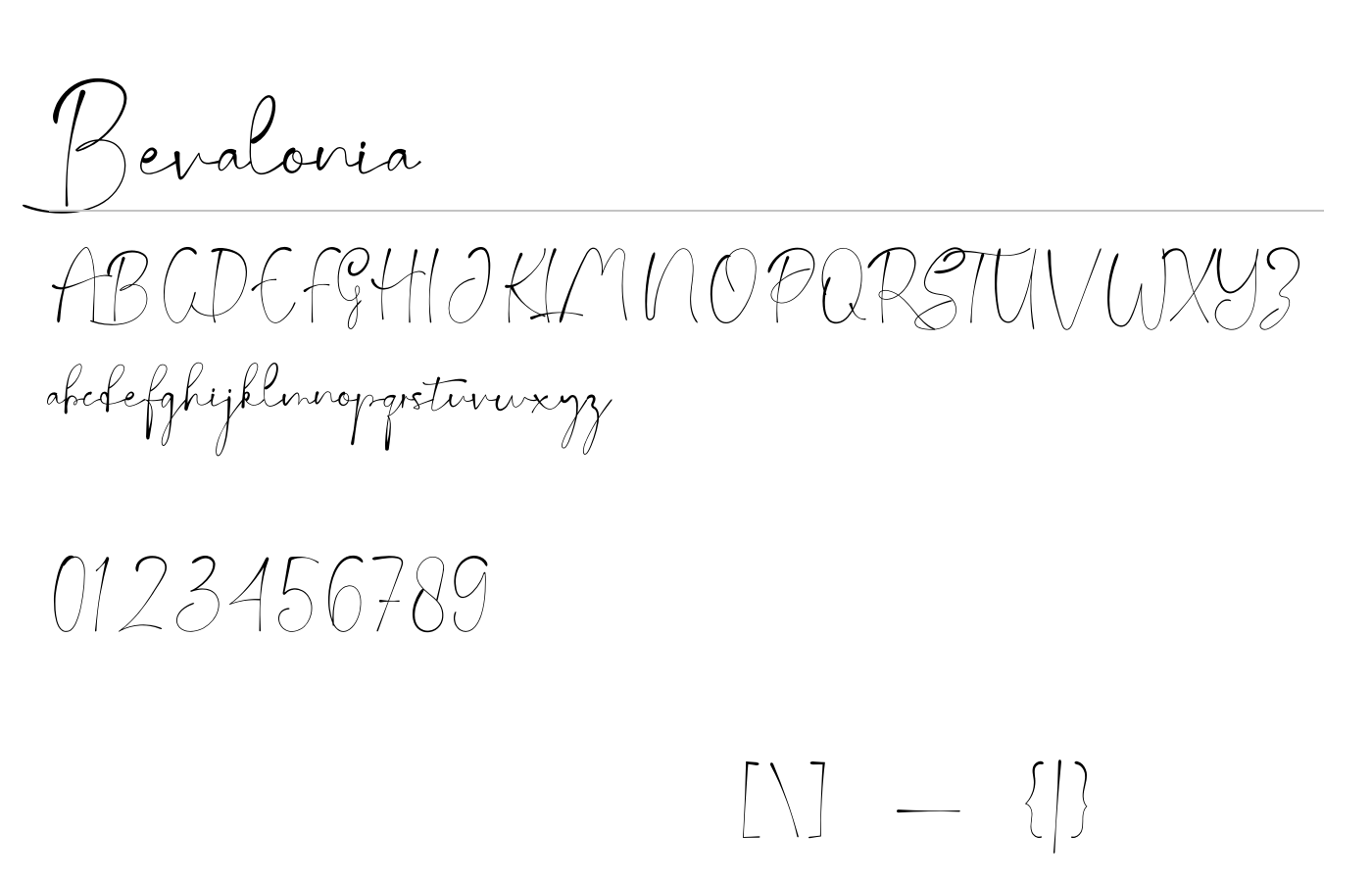
Bevalonia is a delicate, handwritten script font with a light weight and tall, elegant letterforms that give it an airy, sophisticated feel. Its thin strokes and playful curves create a modern yet personal touch, making it ideal for invitations, branding, and creative projects that need a graceful, artistic flair. This font works beautifully where a refined, stylish handwritten look is desired.
Bevalonia Font
About Bevalonia Font